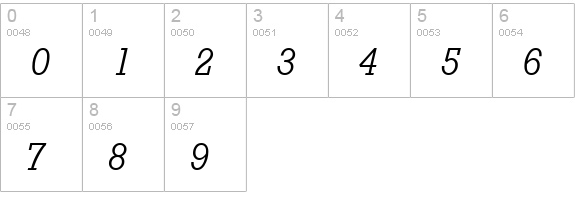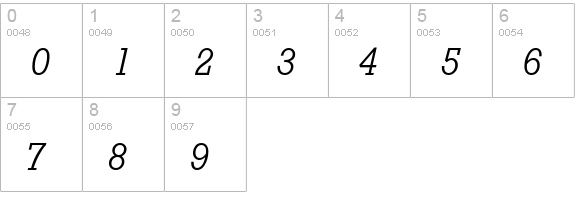
Stafford-Light-Italic is a refined, elegant, italic variant in the Stafford typeface family \xE2\x80\x94 well suited to elegant body text, refined sub-headings, and luxury branding.
Stafford-Light-Italic is a sophisticated and elegant font that exudes a sense of modernity and style. Its delicate curves and subtle slant create a sense of grace and refinement, making it perfect for use in a variety of design projects. This font offers a unique balance between tradition and innovation, making it a versatile choice for both print and digital applications. What sets Stafford-Light-Italic apart is not just its aesthetic appeal, but also the fact that it is available for free download at FontsMarket.com. This means that you can elevate your designs with this exquisite font without any cost involved. Whether you are working on branding materials, editorial designs, or digital content, Stafford-Light-Italic is sure to make a lasting impression. Embrace the beauty and versatility of Stafford-Light-Italic in your next project and experience the seamless blend of elegance and modernity that this font has to offer. Download it for free today at FontsMarket.com and elevate your design work to new heights.